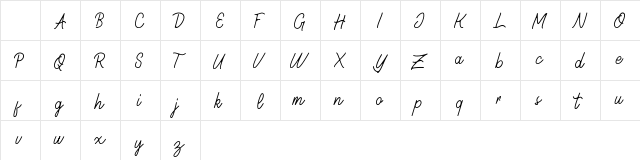
Complete Geralia DEMO Regular glyph index. Displaying only characters natively supported by Geralia DEMO Regular font.
Geralia DEMO is a composed and adaptable typeface that performs quietly and consistently across a wide range of design contexts.